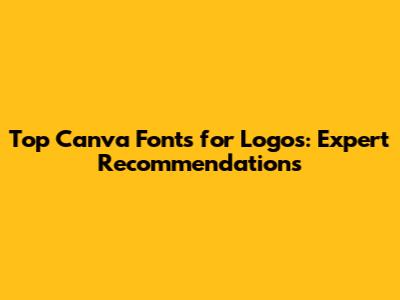
- Montserrat: A clean and versatile sans-serif font that works well for various industries.
- Raleway: Elegant and modern, with a slightly more sophisticated feel than Montserrat.
- Oswald: A condensed sans-serif that's great for headlines and logos where space is limited.
- Playfair Display: A high-contrast serif font with a classic and refined look.
- Mrs. Eaves: A sophisticated serif font with a touch of vintage charm.
- Bodoni Moda: A bold and elegant serif font that commands attention.
- Luckiest Guy: A bold and quirky handwritten font with a vintage feel.
- Amatic SC: A simple but playful hand-drawn font, perfect for headlines.
- Permanent Marker: A casual and energetic font that looks like it was written with a marker.
- Bebas Neue: A clean and modern sans-serif font that's perfect for headlines and logos.
- Archivo Black: An ultra-bold sans-serif that demands attention.
- Alfa Slab One: A heavy slab serif font with a strong and confident feel.
- Consider your brand personality: What are the core values and characteristics of your brand? Choose a font that reflects those qualities.
- Think about your target audience: Who are you trying to reach? Select a font that will resonate with them.
- Keep it simple: Don't use more than two fonts in your logo. Too many fonts can create a cluttered and confusing look.
- Ensure legibility: Make sure your font is easy to read, even at small sizes.
- Test it out: Try out different fonts and combinations to see what works best for your logo. Get feedback from others to get a fresh perspective.
Creating a memorable and effective logo is crucial for branding, and the right font plays a pivotal role. If you're using Canva, you're in luck! Canva offers a vast library of fonts, but choosing the perfect one can feel overwhelming. Guys, don't worry! This article will explore some of the best Canva fonts for logos, providing expert recommendations to help you create a logo that truly represents your brand.
Why Font Choice Matters for Your Logo
Before diving into specific font recommendations, let's discuss why font choice is so important for your logo. The font you choose communicates more than just the name of your company; it conveys your brand's personality, values, and target audience. Think of it this way: a playful, bubbly font might be perfect for a children's toy store, but it would feel completely out of place for a law firm. Similarly, an elegant, sophisticated font could be ideal for a luxury brand, but it might not resonate with a tech startup aiming for a modern, approachable feel. Font selection is an art form, guys, and it's all about finding the perfect visual representation of your brand's identity. When selecting fonts, consider legibility across various sizes and applications. A font that looks great on a large banner might become unreadable when scaled down for business cards or social media profiles. Always test your logo in different sizes to ensure it remains clear and impactful. Different fonts evoke different emotions and associations. Serif fonts (like Times New Roman or Georgia) often convey tradition, authority, and reliability, while sans-serif fonts (like Arial or Helvetica) tend to project modernity, simplicity, and clarity. Script fonts (like Brush Script or Pacifico) can add a touch of elegance, creativity, or playfulness, but they should be used sparingly to maintain legibility. Consider your target audience and the message you want to convey. A font that resonates with a younger demographic might not appeal to an older audience, and vice versa. Research fonts used by similar brands in your industry to get a sense of what works and what doesn't. However, don't be afraid to break the mold and choose a font that sets you apart from the competition. In conclusion, font choice is a crucial element of logo design that can significantly impact brand perception. By carefully considering factors like legibility, emotional associations, target audience, and industry trends, you can select a font that perfectly represents your brand and helps you achieve your business goals. Don't rush the process, and be willing to experiment with different options until you find the ideal font that captures the essence of your brand.
Top Canva Font Recommendations for Logos
Okay, let's get to the good stuff! Here are some of the top Canva font recommendations for logos, categorized by style and brand personality:
Modern & Minimalist
For brands seeking a clean, contemporary look, these fonts are excellent choices. Modern and minimalist logos need fonts that reflect that aesthetic. They should be clean, simple, and easy to read. These fonts often feature geometric shapes and a lack of ornamentation, which gives them a sleek and sophisticated appearance. When selecting a font for a modern logo, consider the overall brand identity and the message you want to convey. A minimalist font can be incredibly effective for brands that want to project a sense of clarity, efficiency, and innovation. It's important to choose a font that is versatile and can be used across various applications, from business cards to websites to social media graphics. Additionally, pay attention to the font's weight and spacing, as these factors can significantly impact its legibility and visual appeal. Experiment with different font combinations to find the perfect balance between your logo's typeface and any supporting text. Remember, the goal is to create a logo that is both visually appealing and communicates your brand's core values. In the realm of modern fonts, those with clean lines and a sans-serif style often dominate. These fonts are designed to convey a sense of modernity and forward-thinking. They are frequently used by tech companies, startups, and brands that want to be perceived as innovative and cutting-edge. Minimalist fonts, on the other hand, take simplicity to the extreme. They often feature very thin strokes and a lack of embellishment, which can create a sense of elegance and sophistication. However, it's important to ensure that minimalist fonts are still legible, especially when used in smaller sizes. Combining a modern or minimalist font with a bold color palette or a striking graphic element can create a logo that is both visually appealing and memorable. Ultimately, the key to choosing the right font for a modern or minimalist logo is to consider the overall brand identity and the message you want to convey. By carefully selecting a font that aligns with your brand's values and aesthetic, you can create a logo that stands out and effectively communicates your message to your target audience.
Elegant & Luxurious
If your brand embodies sophistication and luxury, consider these fonts. Elegant and luxurious fonts are crucial for brands aiming to project sophistication, refinement, and exclusivity. These fonts often feature delicate serifs, graceful curves, and a sense of timelessness. They are designed to evoke feelings of luxury, quality, and attention to detail. When selecting a font for a logo that represents elegance and luxury, it's essential to consider the overall brand identity and the target audience. These fonts should be legible and visually appealing, conveying a sense of prestige and sophistication. Pay close attention to the font's weight, spacing, and kerning, as these elements significantly impact its overall appearance. Experiment with different font combinations to achieve the desired effect. Consider pairing an elegant serif font with a simpler sans-serif font for a balanced and sophisticated look. The choice of color also plays a crucial role in enhancing the luxurious feel of the logo. Gold, silver, and other metallic tones can add a touch of opulence and elegance. In the realm of luxurious fonts, those with ornate serifs and intricate details are frequently chosen. These fonts are designed to convey a sense of history, tradition, and craftsmanship. They are often used by high-end fashion brands, luxury hotels, and exclusive restaurants. Elegant fonts with flowing curves and a calligraphic influence can also be effective for creating a sense of sophistication and grace. These fonts are often used by beauty brands, wedding planners, and businesses that cater to a discerning clientele. When designing a luxurious logo, it's important to avoid using fonts that are too trendy or overly stylized. The goal is to create a logo that is timeless and enduring, reflecting the brand's commitment to quality and excellence. Combining an elegant font with a minimalist color palette and a refined graphic element can create a logo that is both visually stunning and communicates the brand's luxurious identity. Ultimately, the key to choosing the right font for an elegant and luxurious logo is to consider the brand's overall identity and the message it wants to convey. By carefully selecting a font that aligns with these values, you can create a logo that captures the essence of luxury and attracts the desired target audience. Remember, consistency is key, so ensure that the chosen font is used consistently across all branding materials to maintain a cohesive and professional image.
Playful & Creative
For brands that want to project a fun, approachable, and innovative image, these fonts are ideal. Playful and creative logos require fonts that reflect the brand's unique personality. These fonts often feature unusual shapes, whimsical details, and a sense of fun. They are designed to capture attention and create a memorable impression. When selecting a font for a playful and creative logo, it's important to consider the overall brand identity and the target audience. The font should be legible and visually appealing, but it should also convey a sense of creativity and innovation. Experiment with different font combinations to find the perfect balance between playfulness and professionalism. Consider pairing a quirky font with a more traditional font to create a unique and memorable logo. The use of color also plays a significant role in enhancing the playful feel of the logo. Bright, bold colors can add a sense of energy and excitement. In the realm of playful and creative fonts, those with hand-drawn or script-like qualities are frequently chosen. These fonts are designed to convey a sense of authenticity, personality, and approachability. They are often used by small businesses, creative agencies, and brands that want to connect with their audience on a personal level. Fonts with unusual shapes or decorative elements can also be effective for creating a playful and memorable logo. However, it's important to ensure that these fonts remain legible, especially when used in smaller sizes. When designing a playful and creative logo, it's essential to avoid using fonts that are too generic or corporate-looking. The goal is to create a logo that stands out and reflects the brand's unique personality. Combining a playful font with a creative graphic element and a vibrant color palette can create a logo that is both visually appealing and memorable. Ultimately, the key to choosing the right font for a playful and creative logo is to consider the brand's overall identity and the message it wants to convey. By carefully selecting a font that aligns with these values, you can create a logo that captures the essence of creativity and attracts the desired target audience. Don't be afraid to think outside the box and experiment with different font styles to create a logo that is truly unique and memorable. Remember, the goal is to make your brand stand out from the competition and leave a lasting impression on your target audience.
Bold & Impactful
If you want your logo to make a statement, these fonts will do the trick. Bold and impactful logos need fonts that can convey strength, confidence, and authority. These fonts often feature thick strokes, strong letterforms, and a sense of visual weight. They are designed to grab attention and make a lasting impression. When selecting a font for a bold and impactful logo, it's important to consider the overall brand identity and the message you want to convey. The font should be legible and visually appealing, but it should also project a sense of power and confidence. Experiment with different font weights and sizes to find the perfect balance between boldness and readability. Consider pairing a bold font with a simpler, more understated font to create a visually striking contrast. The use of color also plays a significant role in enhancing the impact of the logo. Dark, saturated colors can add a sense of intensity and authority. In the realm of bold and impactful fonts, those with geometric shapes and clean lines are frequently chosen. These fonts are designed to convey a sense of modernity, efficiency, and strength. They are often used by tech companies, financial institutions, and brands that want to be perceived as leaders in their respective industries. Fonts with strong serifs or slab serifs can also be effective for creating a bold and impactful logo. These fonts are designed to convey a sense of tradition, reliability, and authority. They are often used by law firms, universities, and established businesses. When designing a bold and impactful logo, it's important to avoid using fonts that are too decorative or overly stylized. The goal is to create a logo that is clean, simple, and easy to recognize. Combining a bold font with a minimalist graphic element and a strong color palette can create a logo that is both visually striking and communicates the brand's message effectively. Ultimately, the key to choosing the right font for a bold and impactful logo is to consider the brand's overall identity and the message it wants to convey. By carefully selecting a font that aligns with these values, you can create a logo that commands attention and leaves a lasting impression on your target audience. Make sure that the chosen font is versatile enough to be used across various marketing materials, ensuring brand consistency and recognition. Guys, remember that the goal is to create a logo that not only looks good but also effectively communicates your brand's message and values.
Tips for Choosing the Right Canva Font for Your Logo
Choosing the right font for your logo can feel daunting, but here are a few tips to guide you: